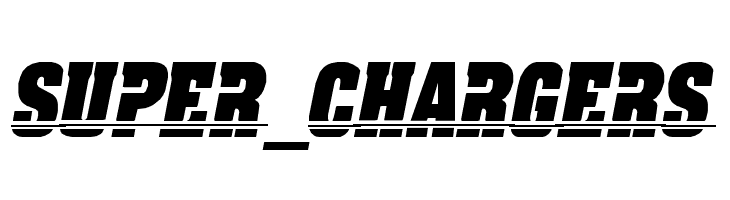
A modern, monospaced italic font with medium contrast and clean lines.
A bold, italic serif font with strong strokes and a dynamic slant.
A playful, dotted font with a modern, pixel-art-inspired design.
A bold, playful font with cartoon-like characters and a dynamic, energetic style.
A bold, angular font with a futuristic and sporty design.
A bold, rugged font with a distressed, textured appearance and expanded width.
A geometric, grid-based font with a modern, technical look.
A bold, italic, futuristic font with angular, geometric shapes and a double-layer outline.